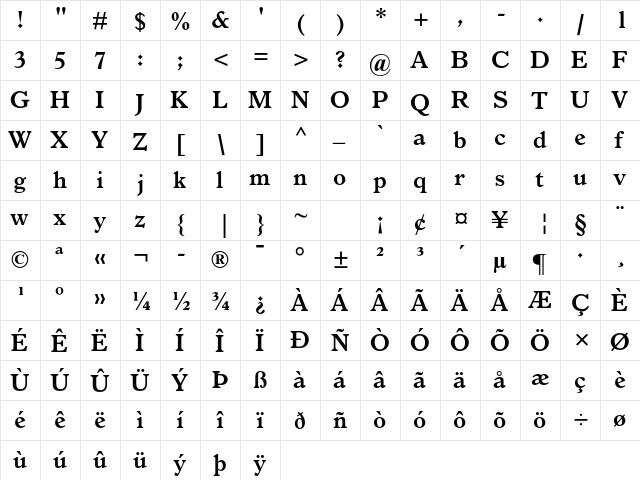
Italian Old Style MT Std Bold
Design Context for Italian Old Style MT Std Typeface
Italian Old Style MT Std offers clean, dependable letterforms without strong stylistic allegiance, making it a practical choice for designers who need flexibility. The heavy weight commands attention and anchors typographic hierarchies.